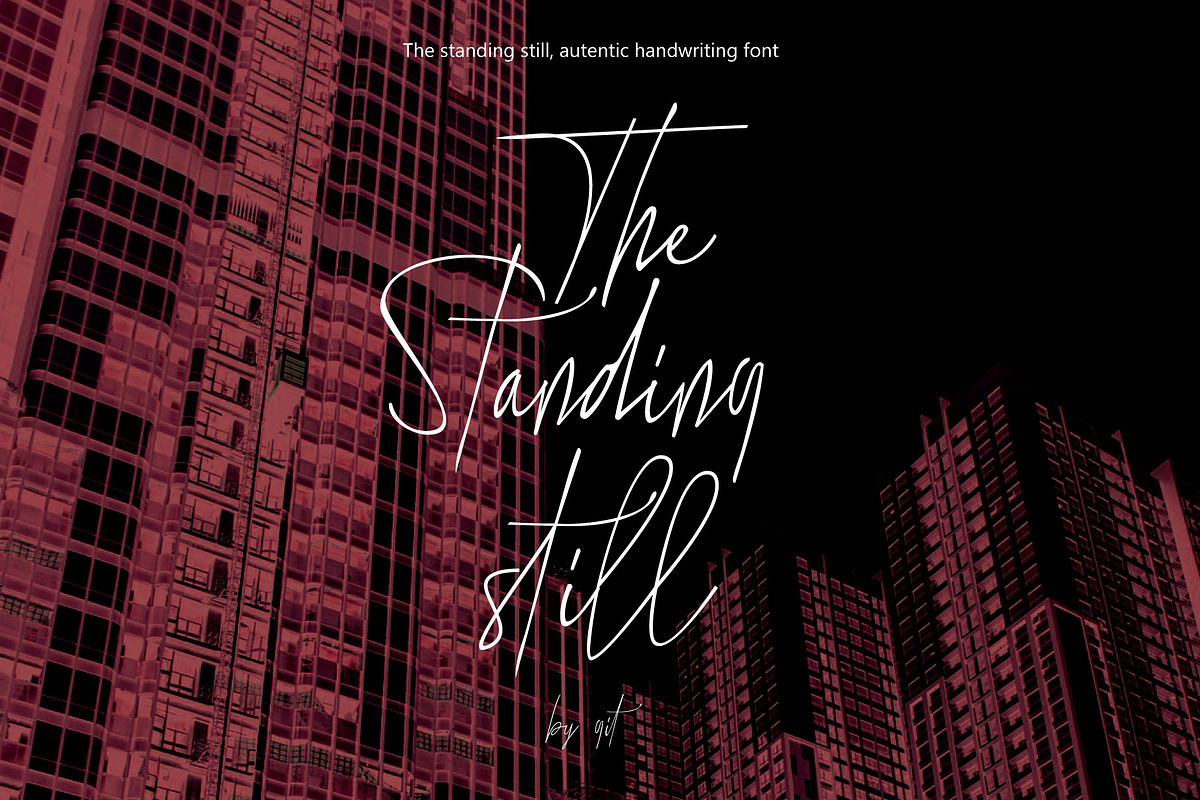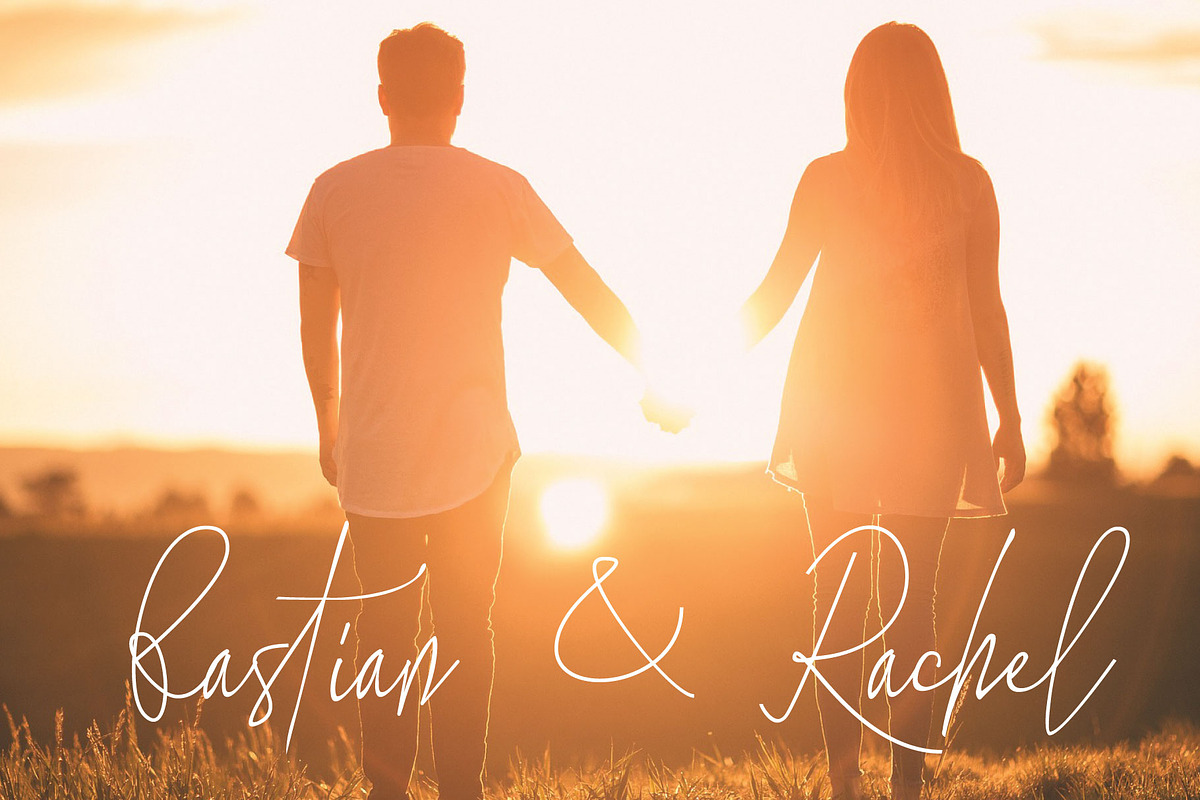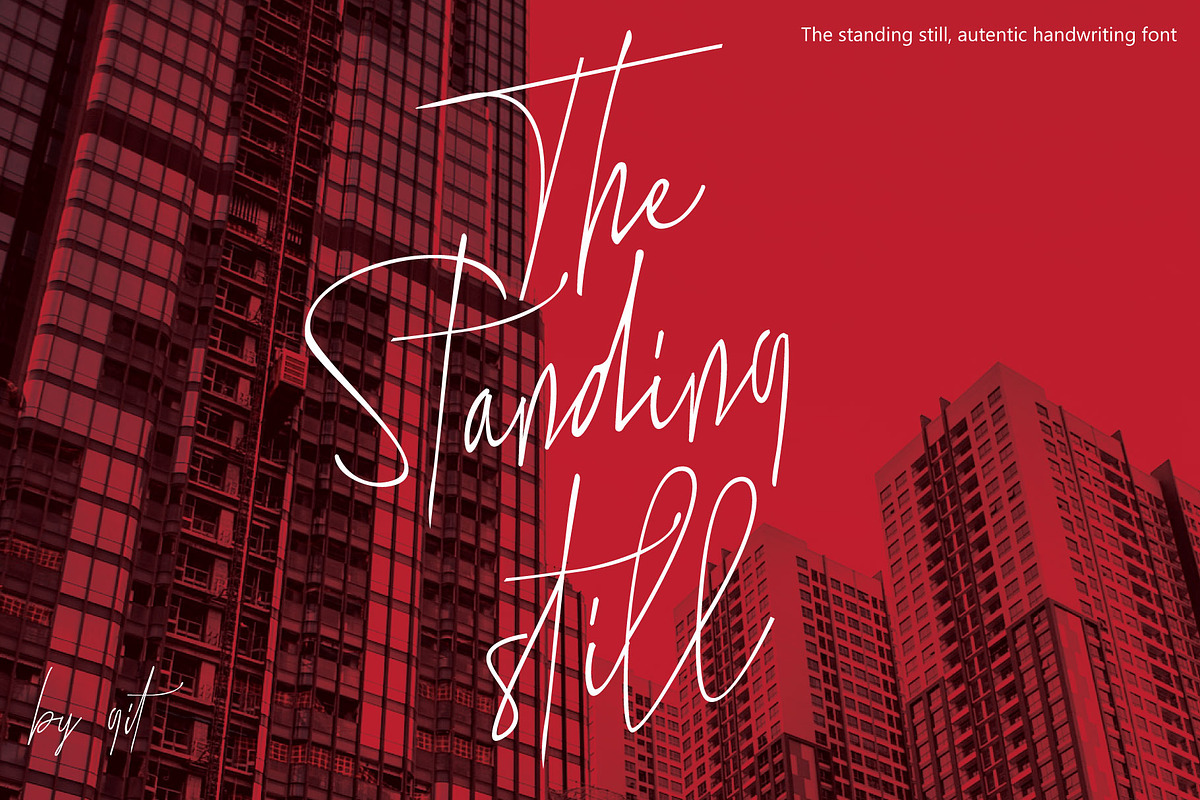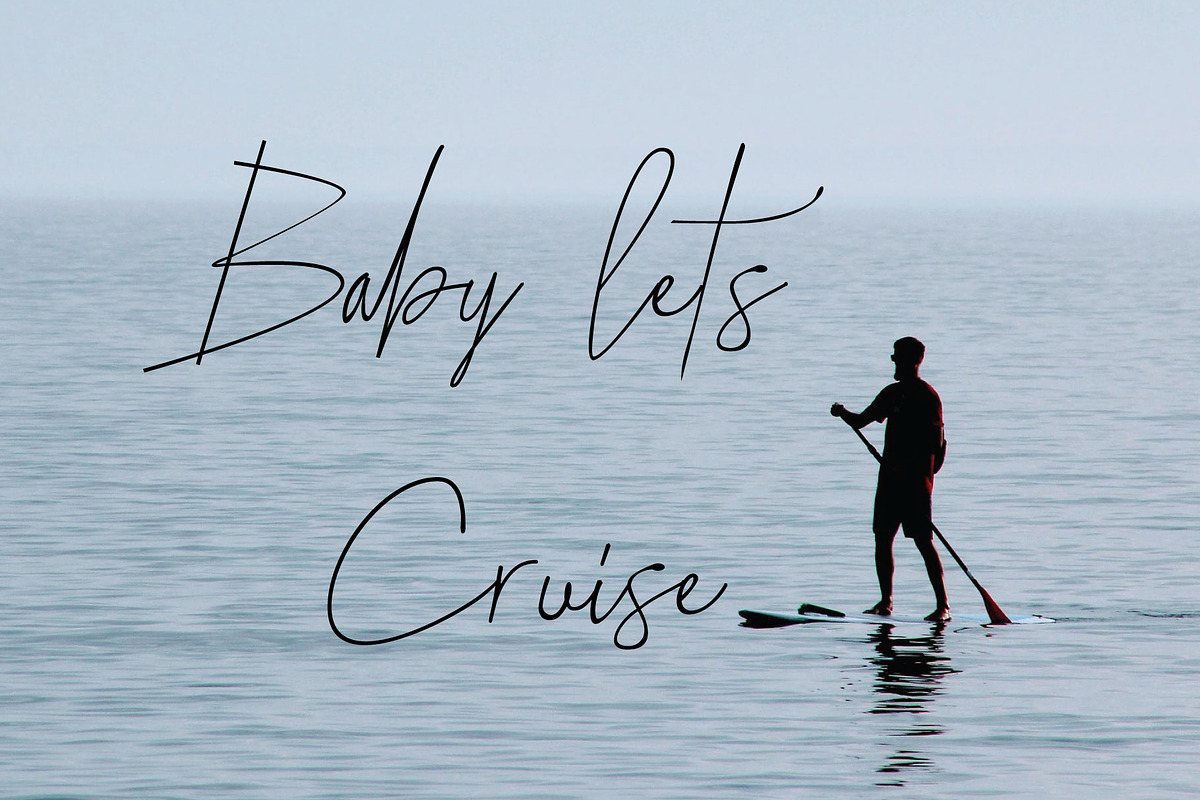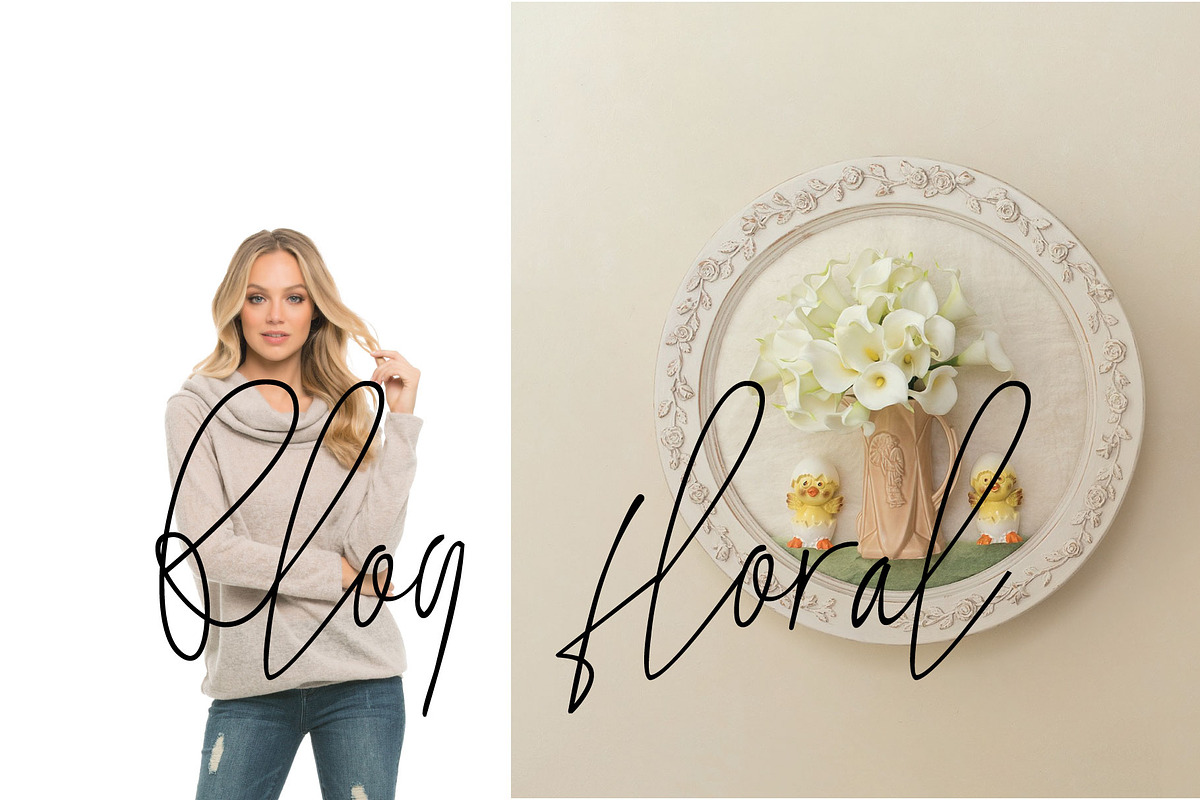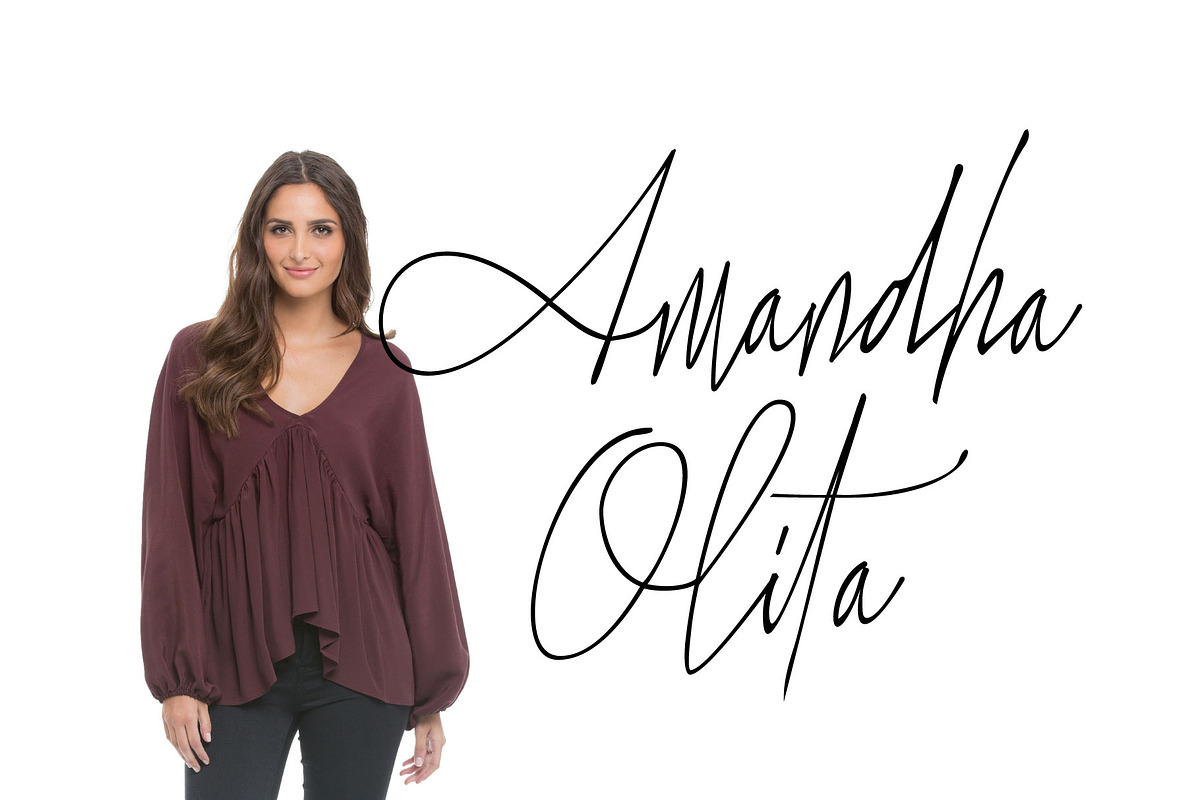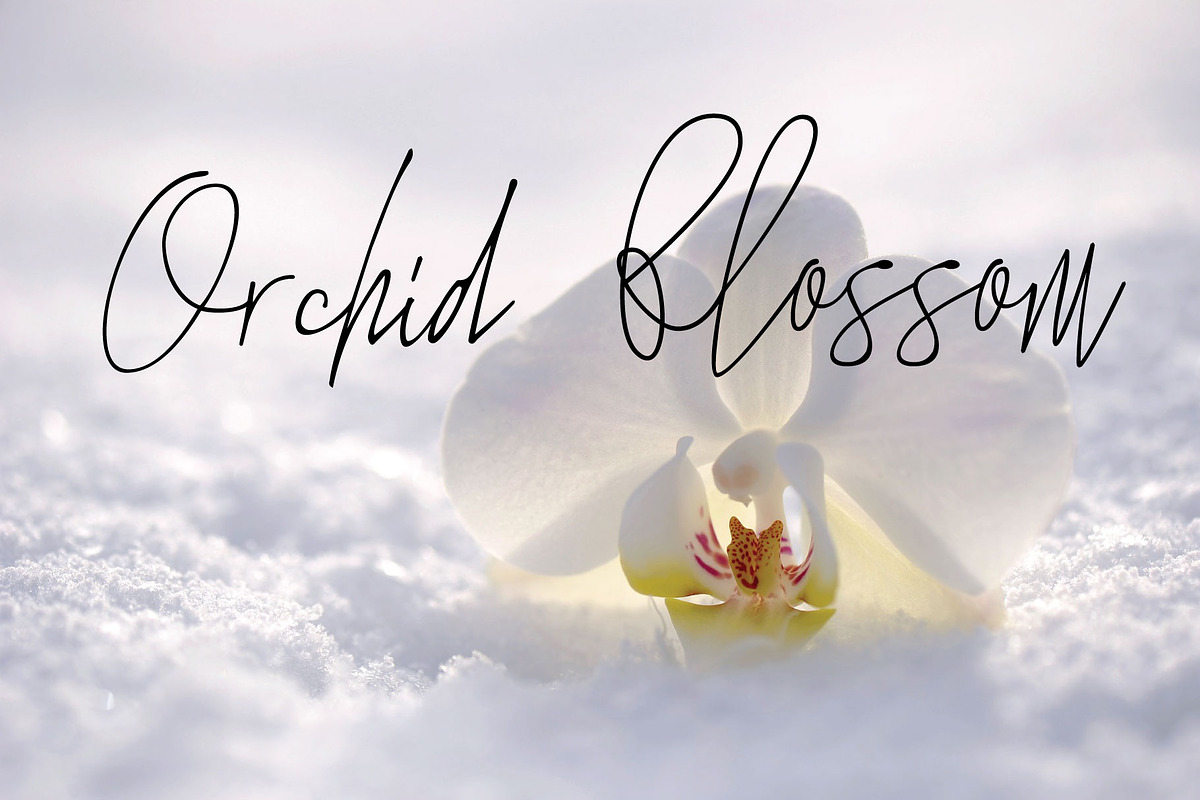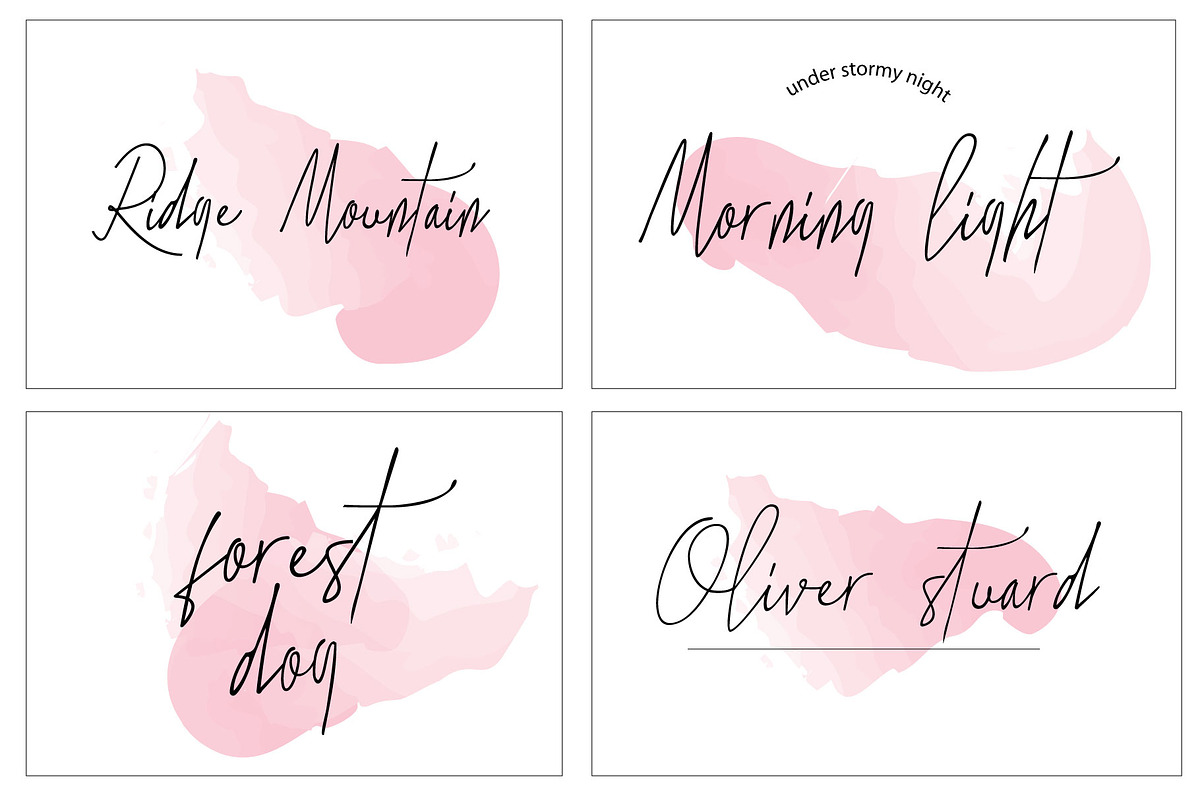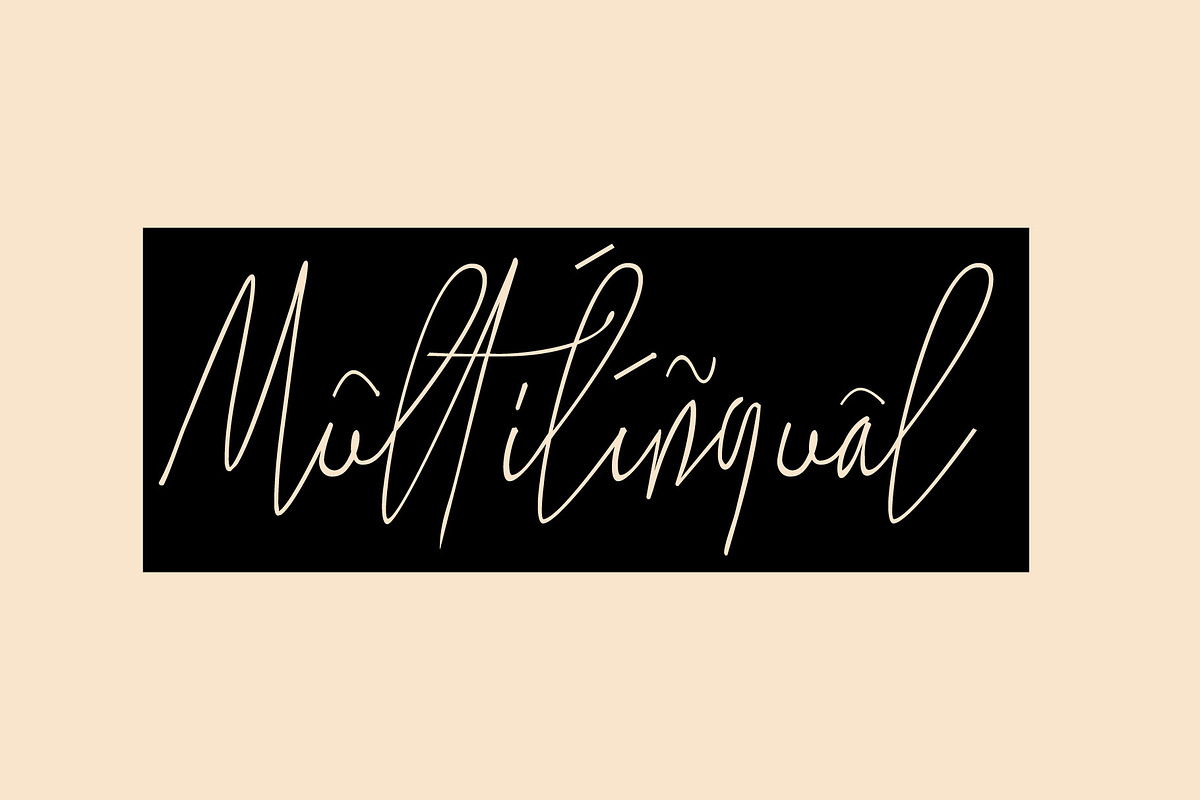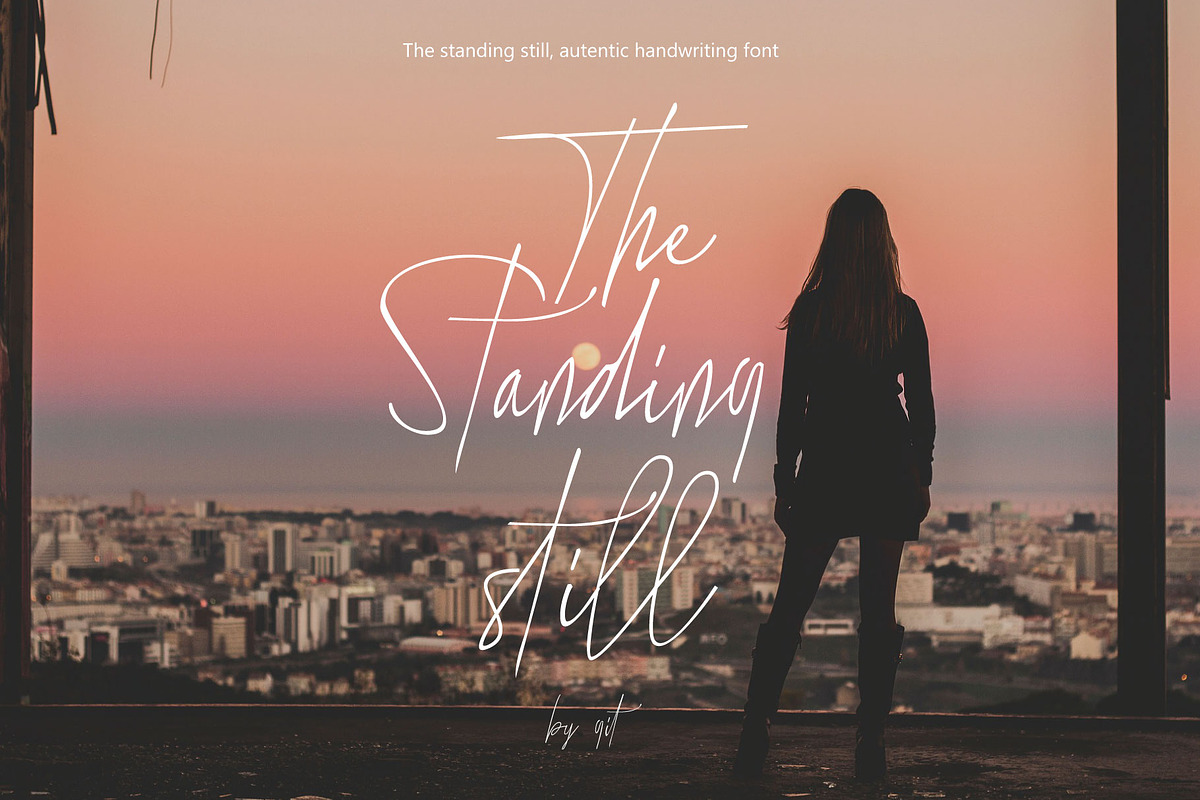
The Standing Still
The Standing Still is a authentic handwritten script. It’s completely created by hand, refined and optimized digitally.
The micro line handwriting is very suitable for wedding invites/cards, restaurant menu’s, fashion magazines, posters and much more.